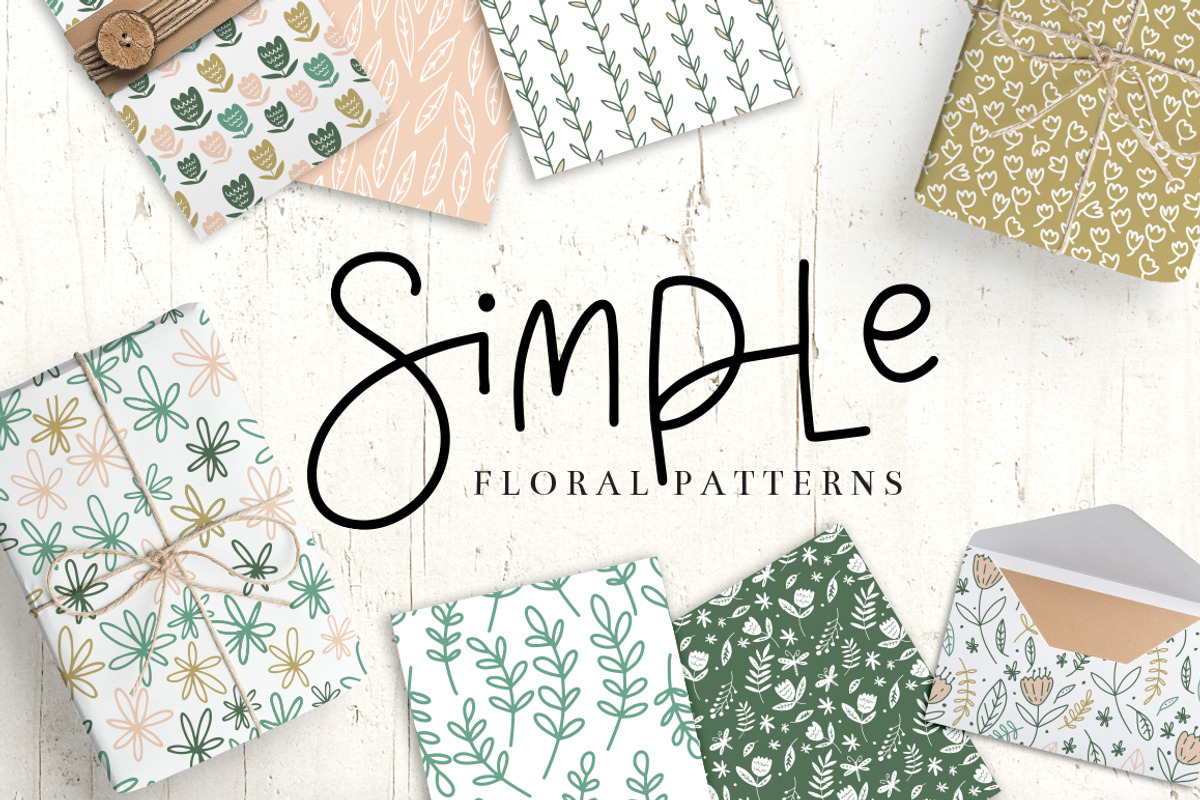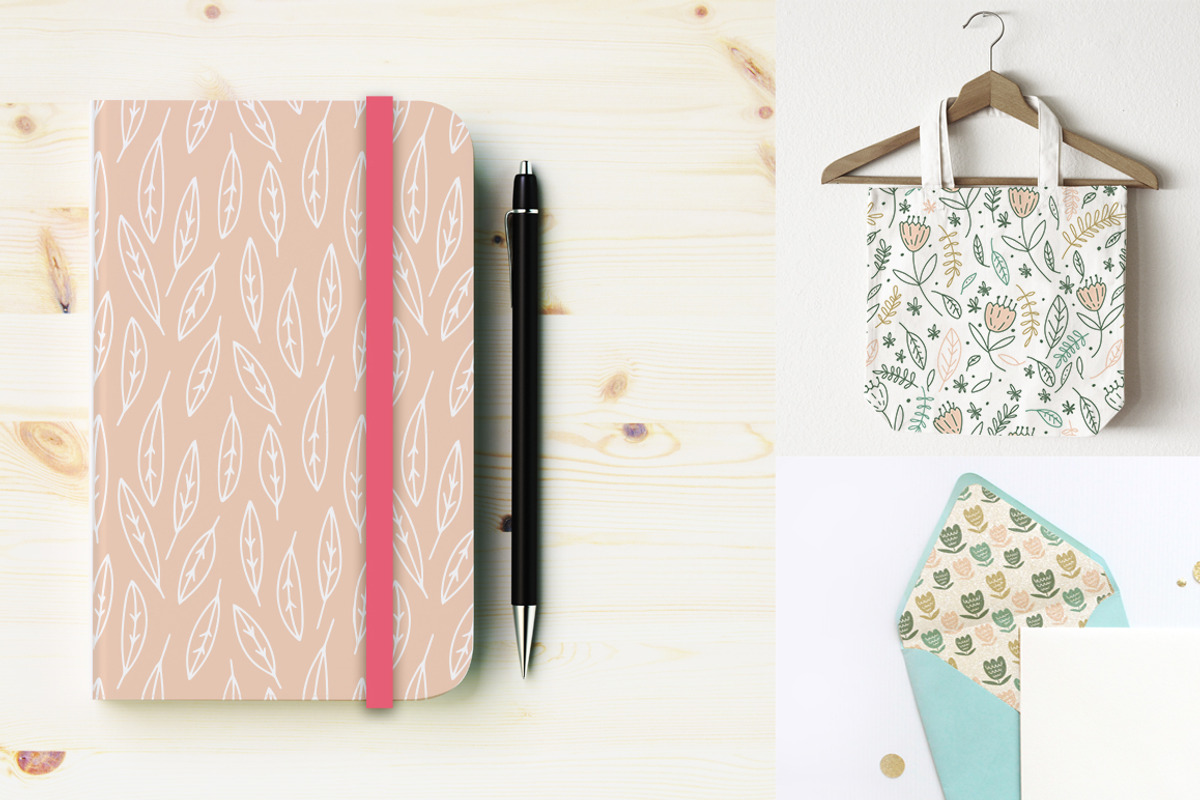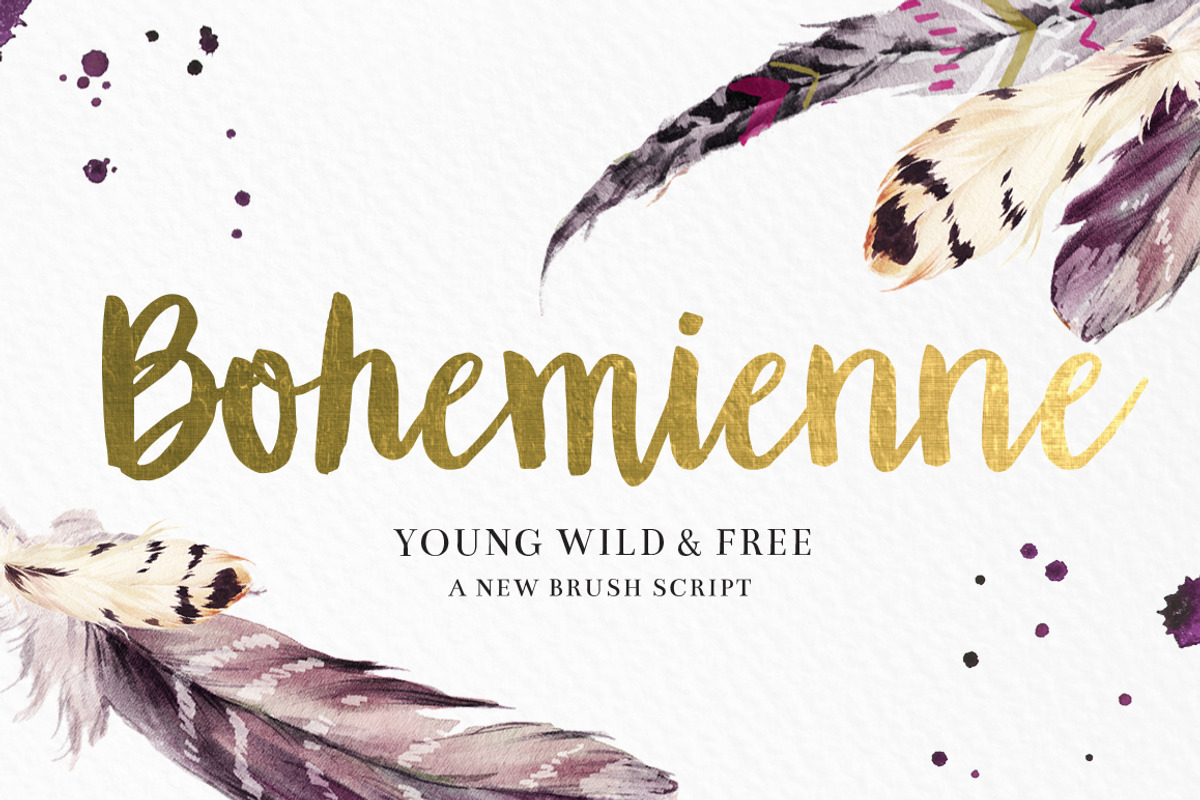
ENTIRE SHOP BUNDLE
It's the best deal in my shop, and I know you'll love it! Packed full of fonts, patterns and illustrations, this bundle will give your projects a hand-made look and feel!
16 hand-drawn fonts, lovingly created to give any of your projects a unique, hand-written feel: (the following are just a sample of the huge variety of fonts found in the bundle) https://creativemarket.com/ShellyLaslo/2045276-La-Parisienne-Brush-Script https://creativemarket.com/ShellyLaslo/753795-Sea-Salt-Brush-Script https://creativemarket.com/ShellyLaslo/298352-Bohemienne-Brush-Script https://creativemarket.com/ShellyLaslo/26204-Story-a-HandDrawn-Font-just-for-you https://creativemarket.com/ShellyLaslo/436591-Wildfox-Typeface-Hand-drawn-font https://creativemarket.com/ShellyLaslo/1053207-Magic-Soul-Handwritten-Typeface https://creativemarket.com/ShellyLaslo/245271-FRESSH-typeface https://creativemarket.com/ShellyLaslo/41949-Oliver-HandDrawn-Font https://creativemarket.com/ShellyLaslo/28898-Hand-Written-font-The-Editor https://creativemarket.com/ShellyLaslo/26250-Hand-Painted-font-Allegro
88 Seamless Patterns (A huge variety of black & white minimalist, floral, abstract, holiday patterns, and more!)
64 Vector Brushes (for Adobe Illustrator): Check them out here: https://creativemarket.com/ShellyLaslo/96225-The-Art-Brush-Pack https://creativemarket.com/ShellyLaslo/87913-The-Ink-Brush-Pack
Hand Illustrated Custom Portrait Creators:
- More than 260 hand illustrated stickers! (typographic overlays and illustrations)